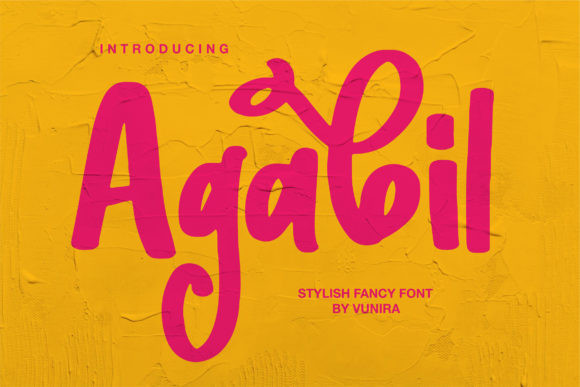
Agabil Font
Agabil is a cool and modern paint brushed display font. No matter the topic, this font will be an incredibly asset to your fonts’ library, as it has the potential to elevate any creation.